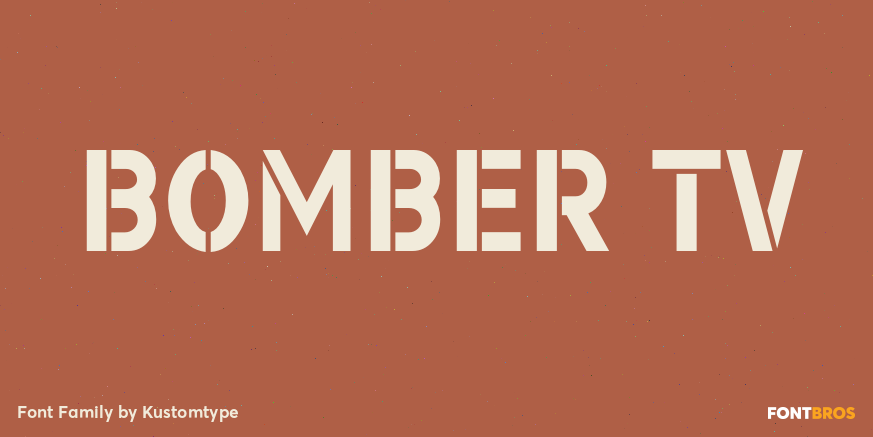
Bomber TV
About Bomber TV
I was asked by a good friend of mine to design his tattoo lettering. This fellow prefered an easy stencil with no ornament, such as swirls or loops. After some preliminary design I finally accepted the challenge and while completing the whole alphabet,…